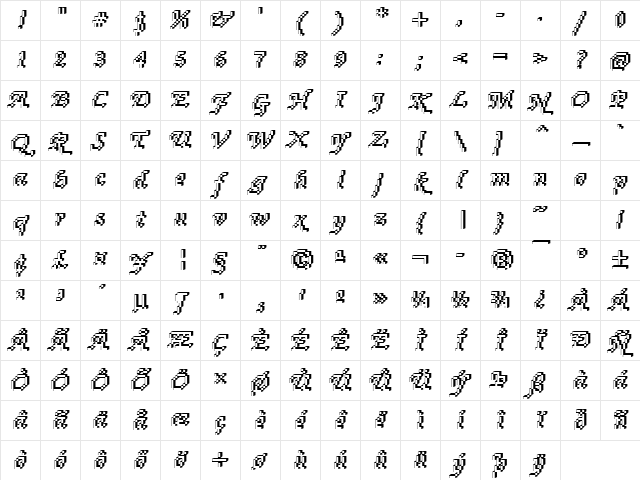
DTCRoughM76 Regular
Design Context for DTCRoughM76
DTCRoughM76 embraces imperfection - its rough, textured character adds raw authenticity to designs that want to feel lived-in and unconventional.
Pro Tip: Use DTCRoughM76 at larger sizes where the texture and irregularity of each letterform can be clearly seen - it loses its character at small sizes.